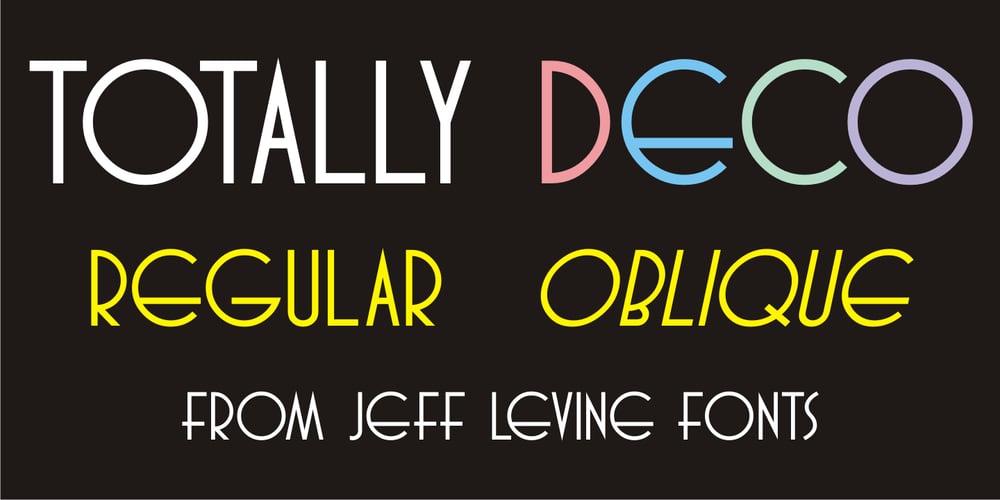
Totally Deco JNL Font Family was designed by Jeff Levine and published by Jeff Levine. Totally Deco JNL contains 2 styles and family package options. The hand lettered title found on the sheet music for 1938’s “So Help Me (If I Don’t Love You)” was the basis for Totally Deco JNL, which is available in both regular and oblique versions. A classic mix of widely rounded letters and condensed letters typifies the design style of the Art Deco era.